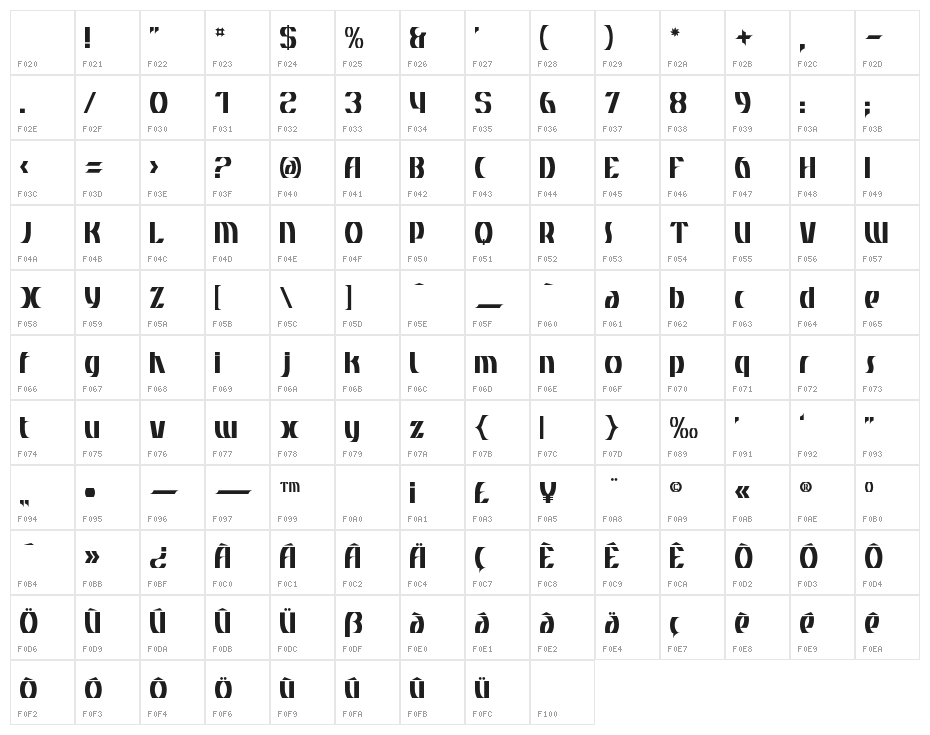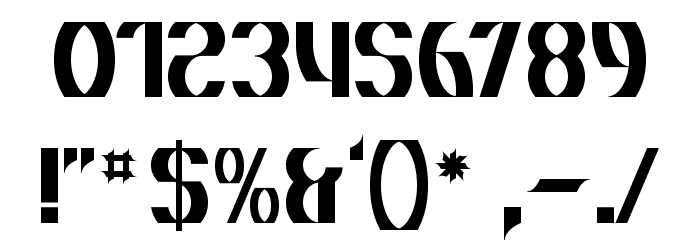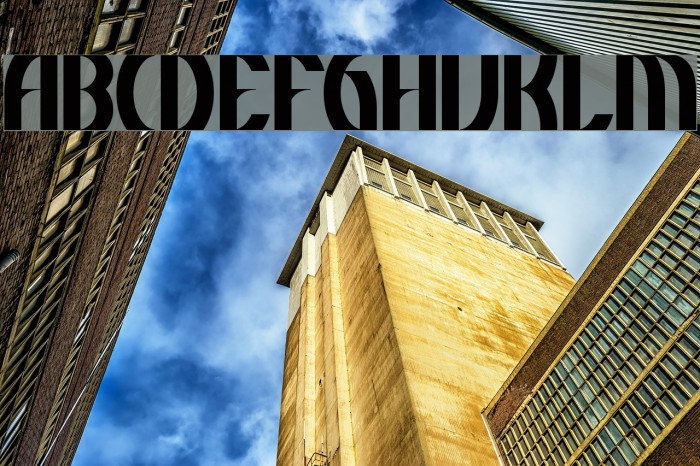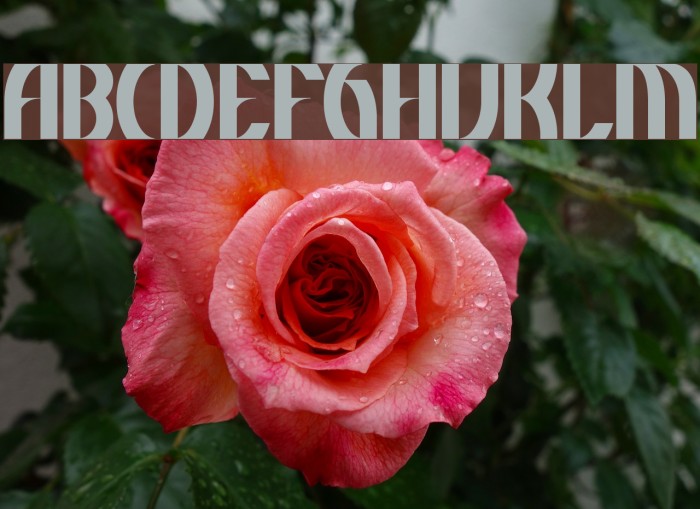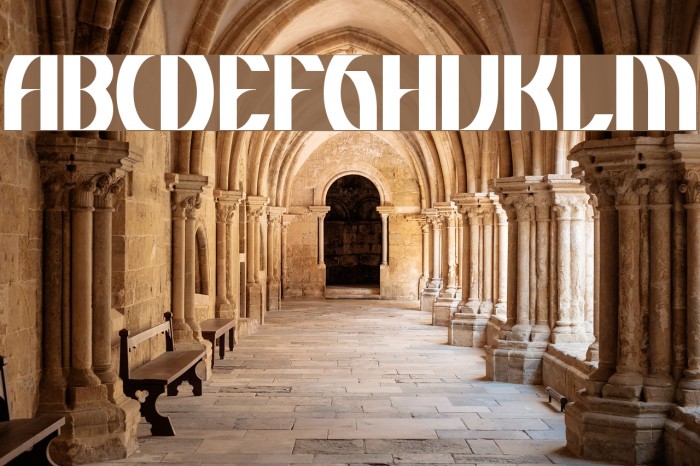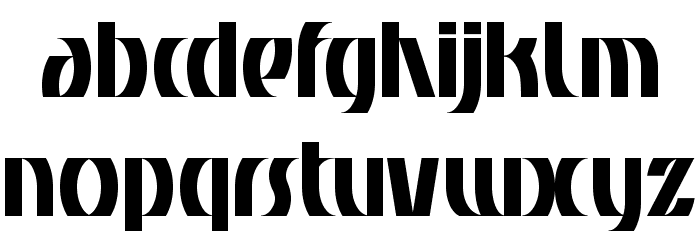
BDApotheke Font
BDApotheke Description
This font features a bold and striking design with a modern, geometric style. The characters are constructed with thick, uniform strokes that create a sense of strength and stability. The uppercase letters are particularly eye-catching, with sharp angles and a consistent height that gives them a cohesive appearance. The lowercase letters maintain the same boldness, with some characters exhibiting unique curves that add a touch of elegance. The numerals are equally bold, ensuring readability and impact. Special characters are designed to match the overall aesthetic, making them suitable for various applications.
| Proposed Projects | Ideal for branding projects, poster designs, and headlines where a strong visual impact is desired. |